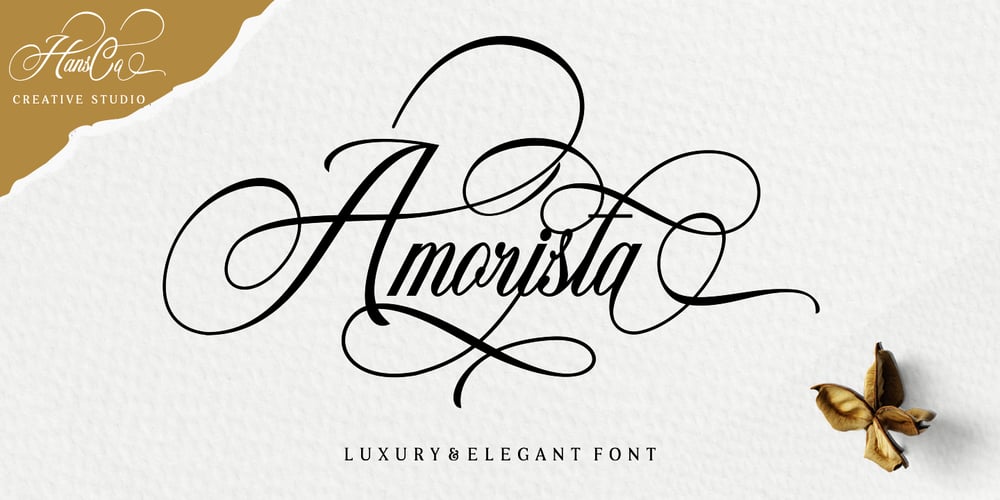
Amorista Font Family was designed by Burhan Afif and published by HansCo. Amorista contains 1 styles and family package options. Amorista is a luxury and elegant font. Many alternate and ligature characters are also available in here. This font is perfect for creating logos, print templates like posters, branding, wedding invitations, quotes, or anything else. Very recommended to use in Adobe Illustrator, Adobe Photoshop, Adobe InDesign, CorelDraw. Don’t forget to check out our font collection for more great and artistic fonts. Pick your most favorite font and create something awesome today.Tutorial how to Install & use Alternate / Special Character : https://hanscostudio.com/tutorial/Enjoy!